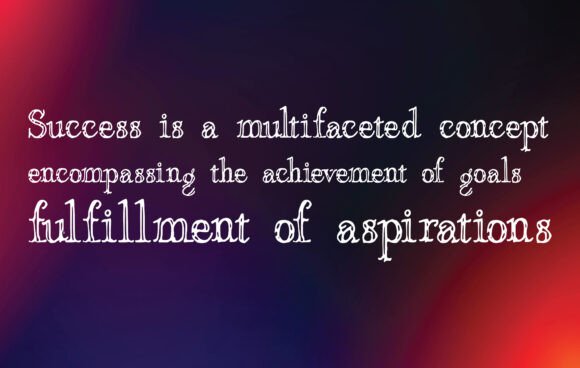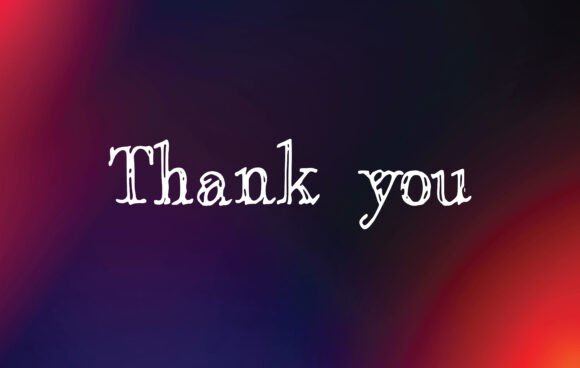
Introducing Claira Font: Elevate Your Creative Projects with Elegance
In the world of digital design, fonts play a pivotal role in conveying messages, evoking emotions, and creating lasting impressions. Among the myriad of fonts available, Claira stands out as a lovely and beautiful handwritten font that has the potential to take your creative ideas to the highest level. Whether you’re a designer, a crafty DIY enthusiast, or a business owner looking to brand your identity, Claira is the best choice for creating eye-catching logos, branding materials, and inspirational quotes.
The Charm of Claira Font
Claira Font is a meticulously crafted handwritten font that exudes elegance and sophistication. Its unique charm lies in its ability to add a personal touch to any project, making it stand out in a sea of generic and overused fonts. The fluidity and grace of Claira’s strokes bring a sense of movement and life to your designs, captivating your audience’s attention and leaving a lasting impact.
One of the key advantages of Claira Font is its versatility. This font is not limited to a specific style or project; it can be used across a wide range of applications. From creating stunning logos and branding materials to crafting beautiful quotes and social media posts, Claira adapts seamlessly to different contexts. Its flexibility makes it an ideal choice for designers and crafters who work on diverse projects and need a reliable font that can keep up with their creative demands.
Why Choose Claira Font?
There are several reasons why Claira Font should be your go-to choice for your next project:
- Elegance and Sophistication: Claira adds a touch of elegance and sophistication to any design, making it perfect for projects that require a refined look.
- Readability: Despite its elegant nature, Claira is highly readable, making it suitable for both headings and body text.
- Uniqueness: In a world where generic fonts are overused, Claira offers a fresh and unique aesthetic that can help your designs stand out.
- Easy to Use: Claira is user-friendly and can be easily integrated into various design software, making the design process smooth and hassle-free.
Applications of Claira Font
The applications of Claira Font are vast and varied. Here are some of the most popular uses:
- Logo Design: Create memorable and impactful logos that capture the essence of your brand.
- Branding: Use Claira to develop a consistent brand identity across all your marketing materials.
- Quotes and Posters: Add a touch of elegance to your inspirational quotes and posters.
- Social Media Graphics: Elevate your social media presence with eye-catching graphics and posts.
- Packaging: Stand out on store shelves with beautifully designed packaging.
Tips for Using Claira Font Effectively
To get the most out of Claira Font, consider the following tips:
- Pair with Complementary Fonts: Experiment with font pairings to create visual interest and hierarchy in your designs.
- Adjust Letter Spacing: Fine-tune the letter spacing to enhance readability and aesthetics.
- Play with Colors: Don’t be afraid to experiment with different colors to match your brand’s identity or the mood of your design.
Claira Font is more than just a beautiful handwritten font; it’s a tool that can elevate your creative projects to new heights. Its elegance, versatility, and uniqueness make it an invaluable asset for designers and crafters looking to make a statement. Whether you’re creating logos, branding materials, or inspirational quotes, Claira is the perfect choice. So, why settle for ordinary when you can create something extraordinary with Claira Font?